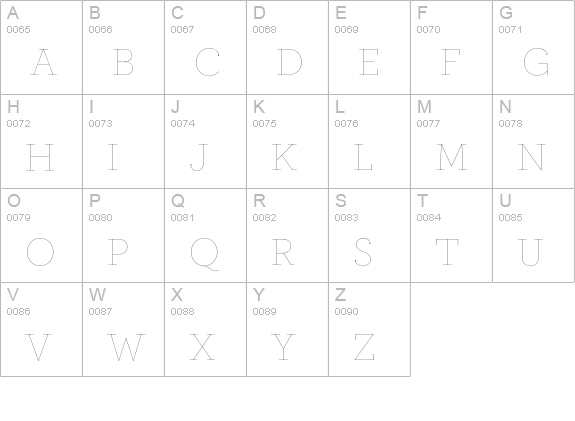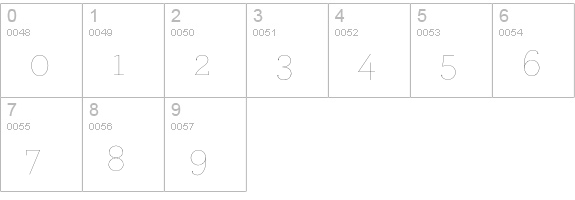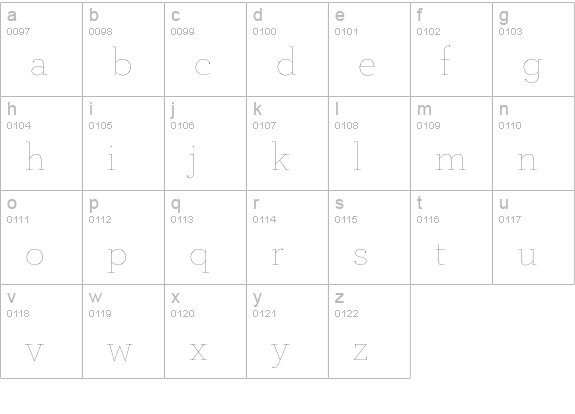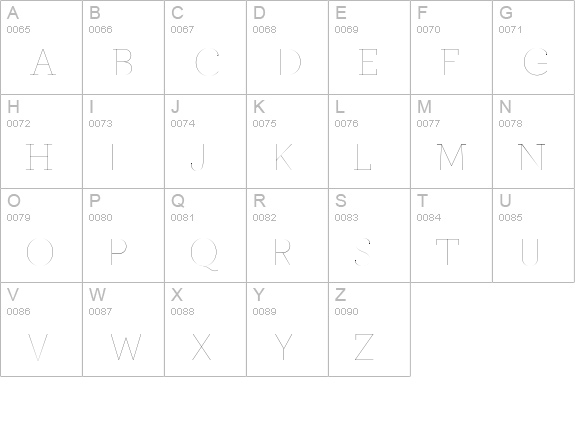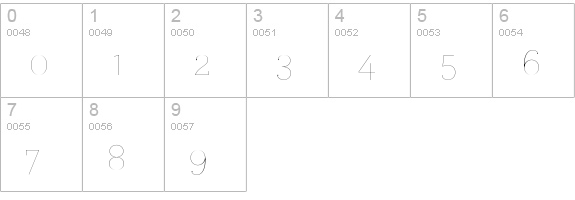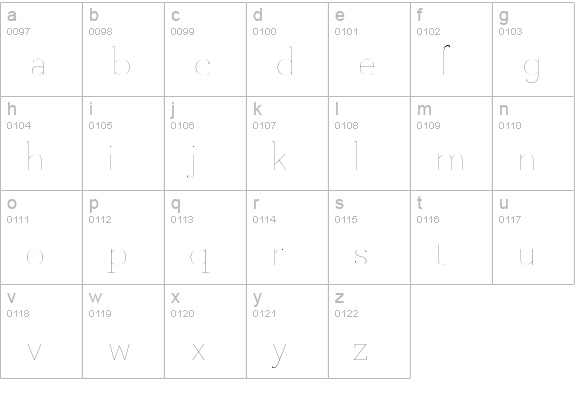
ArcherPro Hairline Font Details
ArcherPro Hairline is an exceptionally fine, almost invisible variant in the ArcherPro typeface family \xE2\x80\x94 well suited to high-end editorial, fashion, and luxury display use.
ArcherPro Hairline font is a modern and stylish typeface designed to add a touch of elegance to your projects. With its sleek and sophisticated appearance, this font is perfect for creating sleek and professional designs. The thin and delicate strokes of ArcherPro Hairline exude a sense of refinement and sophistication, making it ideal for use in branding, logos, headings, and more. One of the best things about ArcherPro Hairline font is that it is completely free to download! You can get your hands on this stunning typeface at FontsMarket.com without having to spend a penny. So why wait? Enhance your designs with the timeless beauty of ArcherPro Hairline font today!